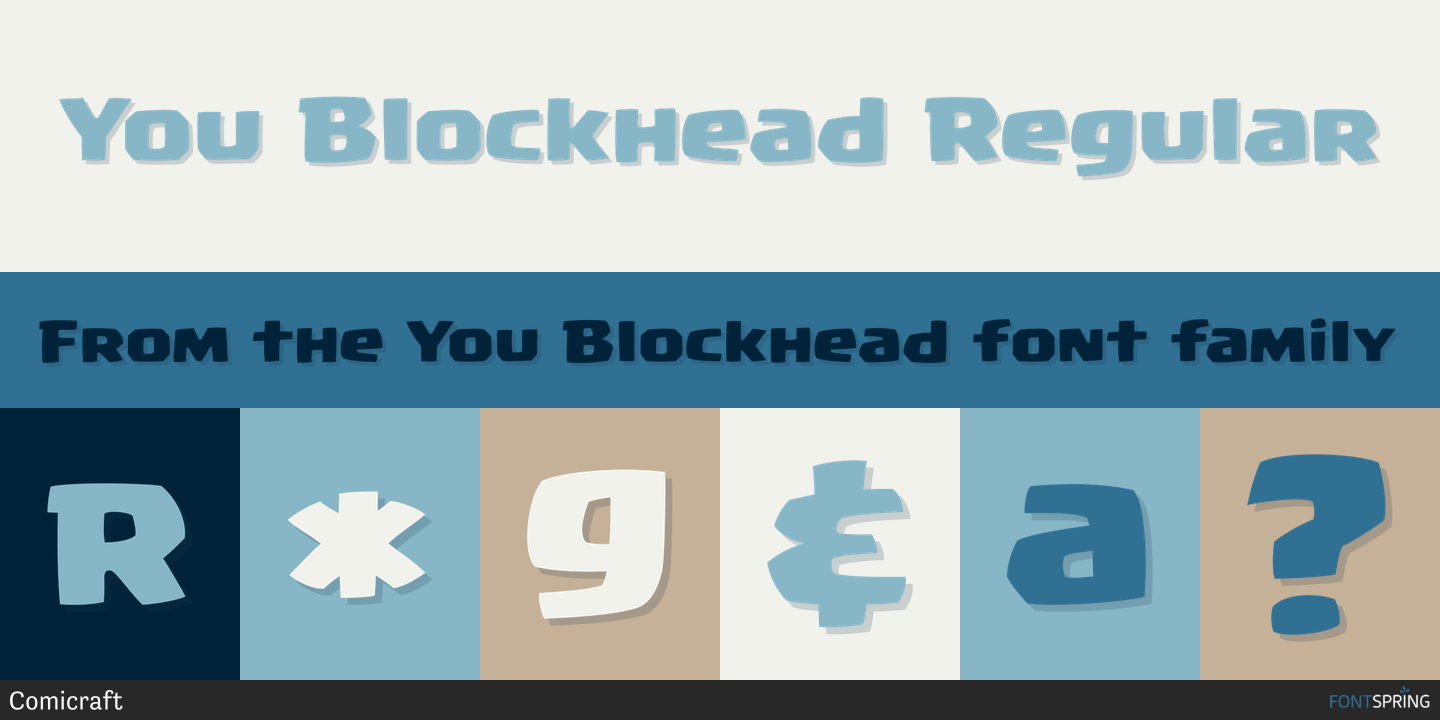
You Blockhead Font
You Blockhead Font - With its sturdy stance and over 100 friendly interlocking letter pairs, this font was made famous in the logo and branding for the. Explore blockhead designed by john hersey at adobe fonts. A decorative typeface with 4 styles, available from adobe fonts for sync and web.